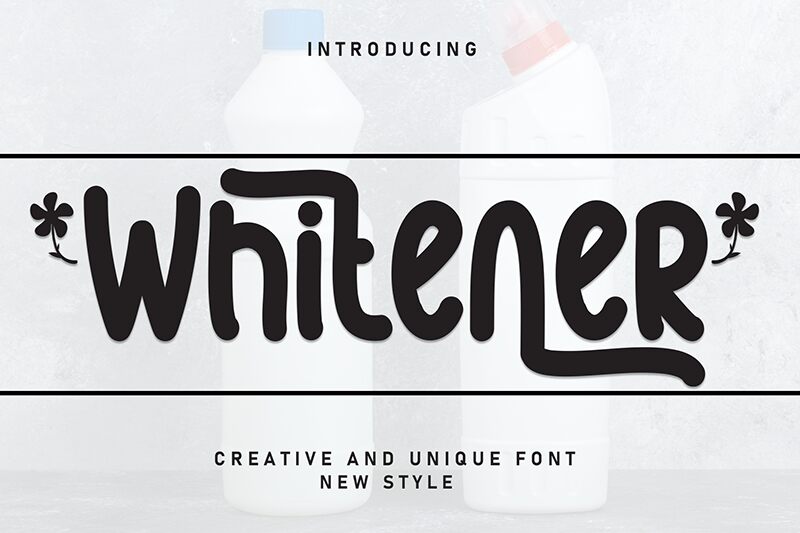
Whitener
Whitener font has a friendly appearance; it is smooth, contemporary, and approachable. The basic design style which makes it clean and readable is handwritten while the stroke width is condensed. The characters have pointed edges and are tightly tied to each other creating a strong visual impression.
Use this free handwritten font in book covers, children magazines, signature logos, flyers, posters or titles. Additional use cases include video montages, branding projects of all sorts, social media content or even product packaging.